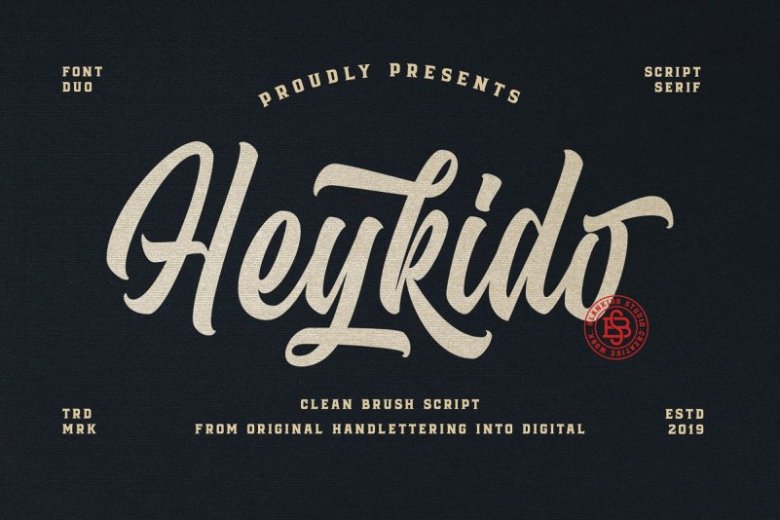
Heykido Font Duo
Hello friend. Heykido Font Duo is a beautiful high fashion font duo, with Modern Elegant Style this is perfect for branding, logos, invitation, masterheads and more. Introducing Heykido Calligraphy Script. It’s inspired by urban script fonts with sharp and beautiful letters that create fonts that are modern, tendy and elegant. Heykido came with opentype features such stylistic alternates, stylistic sets & ligatures good for logotype, poster, badge, book cover, tshirt design, packaging and any more.